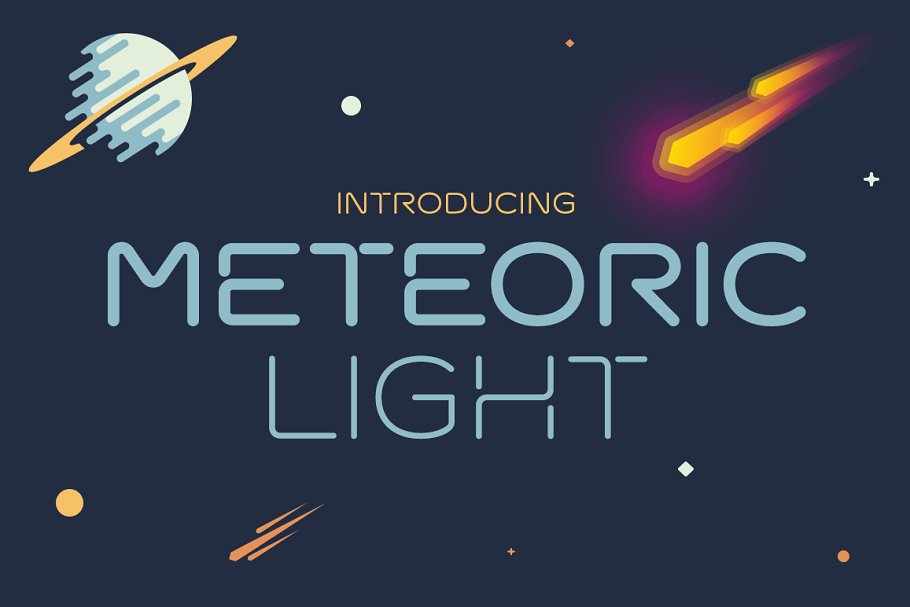
Introducing Meteoric Light Font, the best font for modern logos. Created by the talented Nuno Dias, this font family is a must-have for anyone looking to make a bold statement with their typography.
Meteoric Light Font is a playful three-weight typefamily with a soft and rounded sans serif. Its semi-stencil style sets it apart, giving it a distinct futuristic look and an undeniable modern feeling. This font is perfect for logo design, headlines, and branding purposes, ensuring that your message stands out from the crowd.
What makes Meteoric Light Font truly special is its versatility. This monoline typeface features soft terminals, adding a touch of elegance and sweetness to your designs. Whether you're creating a stunning logo, eye-catching headlines, or captivating branding materials, this font is the perfect choice.
With its extensive glyph coverage, Meteoric Light Font is suitable for a wide range of languages and regions. It includes support for Western Europe, Central Europe, Baltic, Turkish, and Romanian, ensuring that your message can reach a global audience.